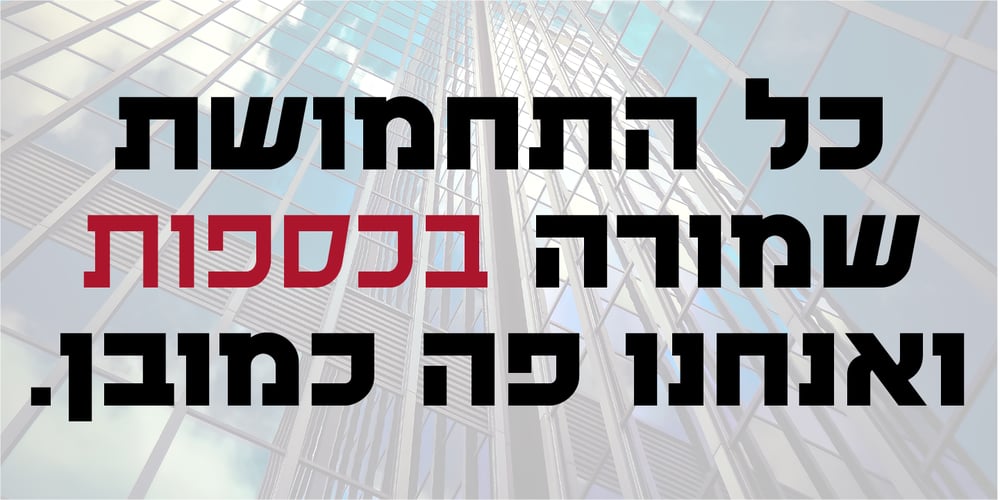
Programa MF Font Family was designed by Zvika Rosenberg and published by Masterfont. Programa MF contains 4 styles and family package options. Bold square and geometric shapes for titles, posters signage and much more.